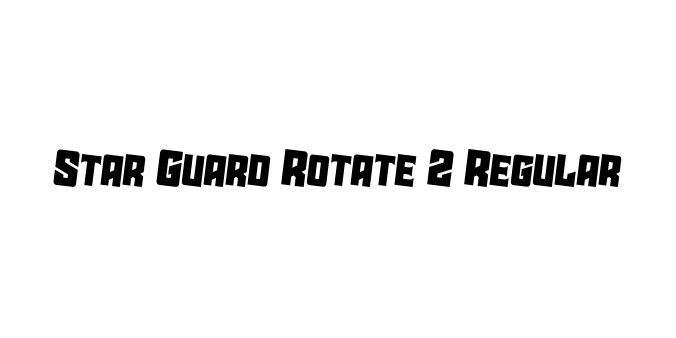
Star Guard Rotate 2 Regular
Designed by Dan Zadorozny (Iconian Fonts)
| Font Name | Star Guard Rotate 2 |
| Designer | Dan Zadorozny (Iconian Fonts) |
Star Guard Rotate 2 Regular is a prominent member of the expansive Star Guard family, designed by the prolific typeface creator Dan Zadorozny. This font embodies a futuristic and techno-centric aesthetic, characterized by its wide, geometric construction and a unique rotational slant that conveys a sense of kinetic energy and forward momentum. It was developed to serve as a high-impact display face, making it ideal for projects that require a bold, modern, and authoritative visual presence.
Beyond its striking visual weight, the font is engineered for maximum legibility in digital environments. The 'Rotate' variant specifically adds a dynamic layer to the standard Star Guard design, making it a favorite for graphic designers working in the gaming and film industries. Whether used for sleek user interfaces or epic cinematic titles, the font maintains a consistent balance between industrial rigidity and sci-fi elegance, ensuring it stands out in crowded visual compositions.
Star Guard Rotate 2 Regular Best Uses
User interface elements, HUD displays, and e-sports branding.
Title sequences and promotional posters for science fiction movies.
Visual identity for tech startups, aerospace firms, and automotive brands.
High-impact headlines for modern technology product launches.